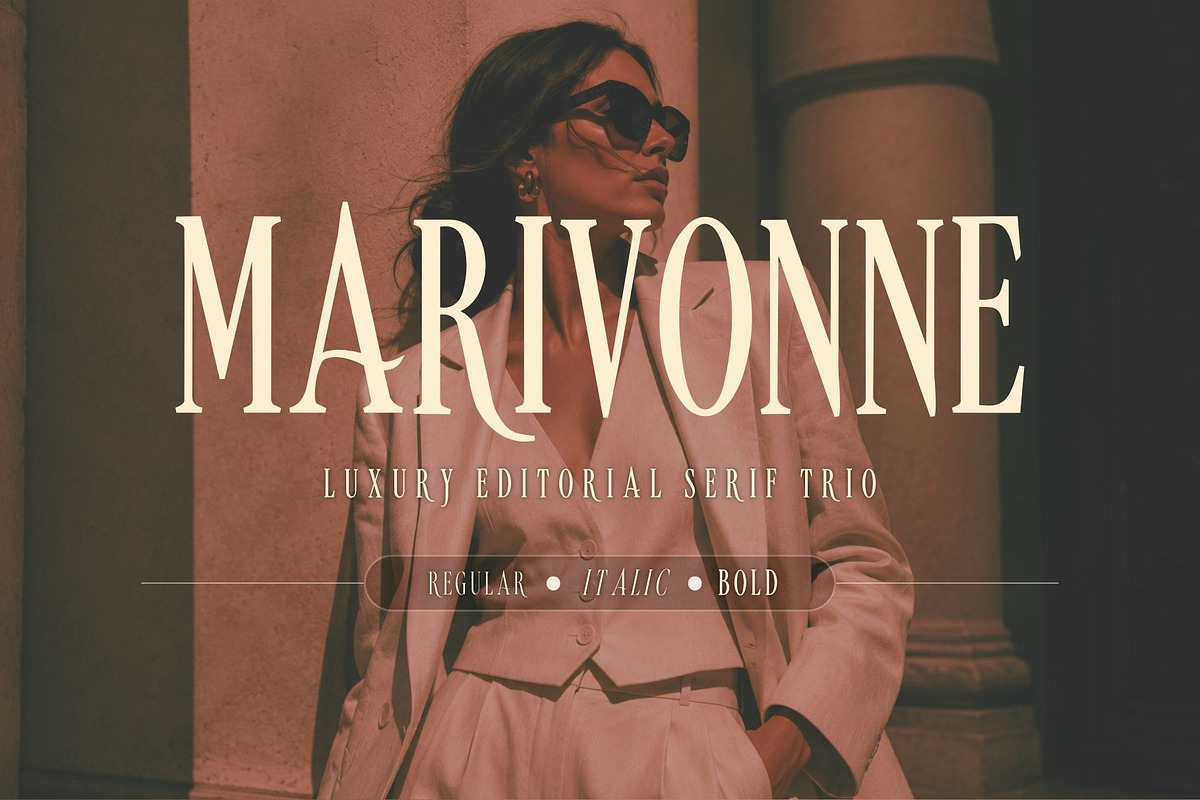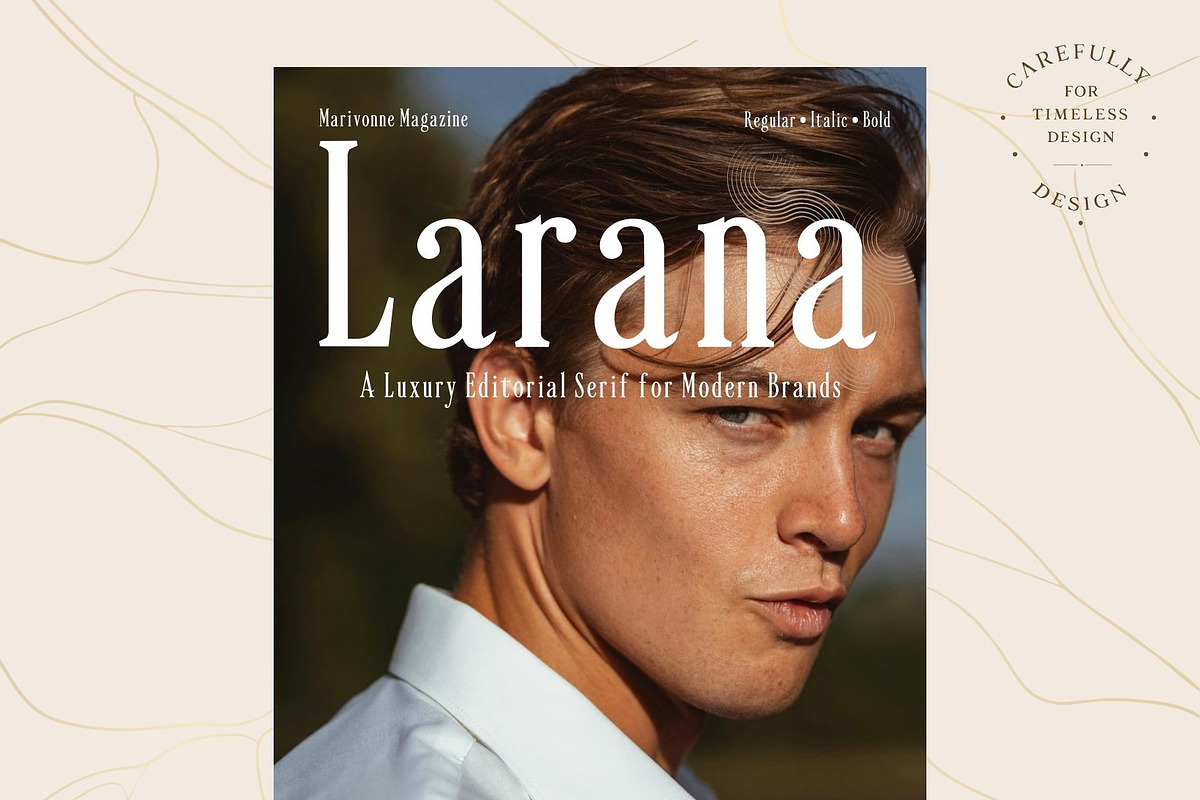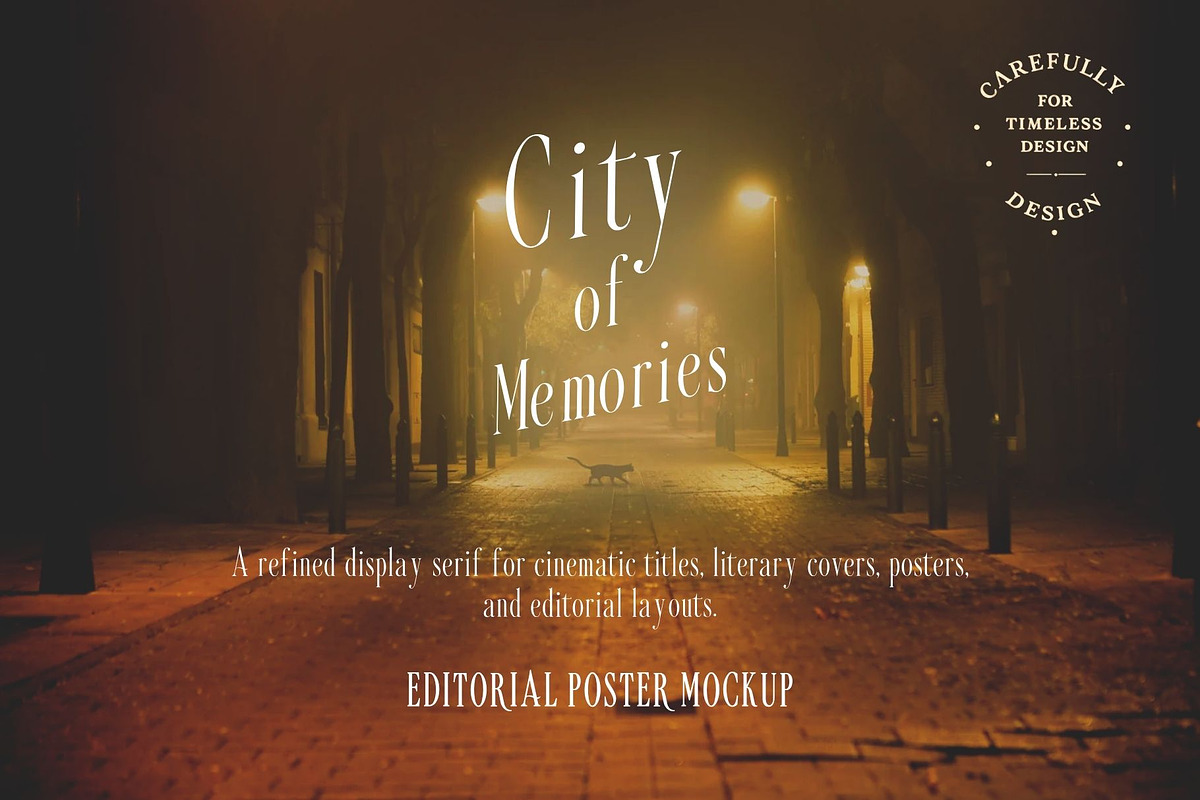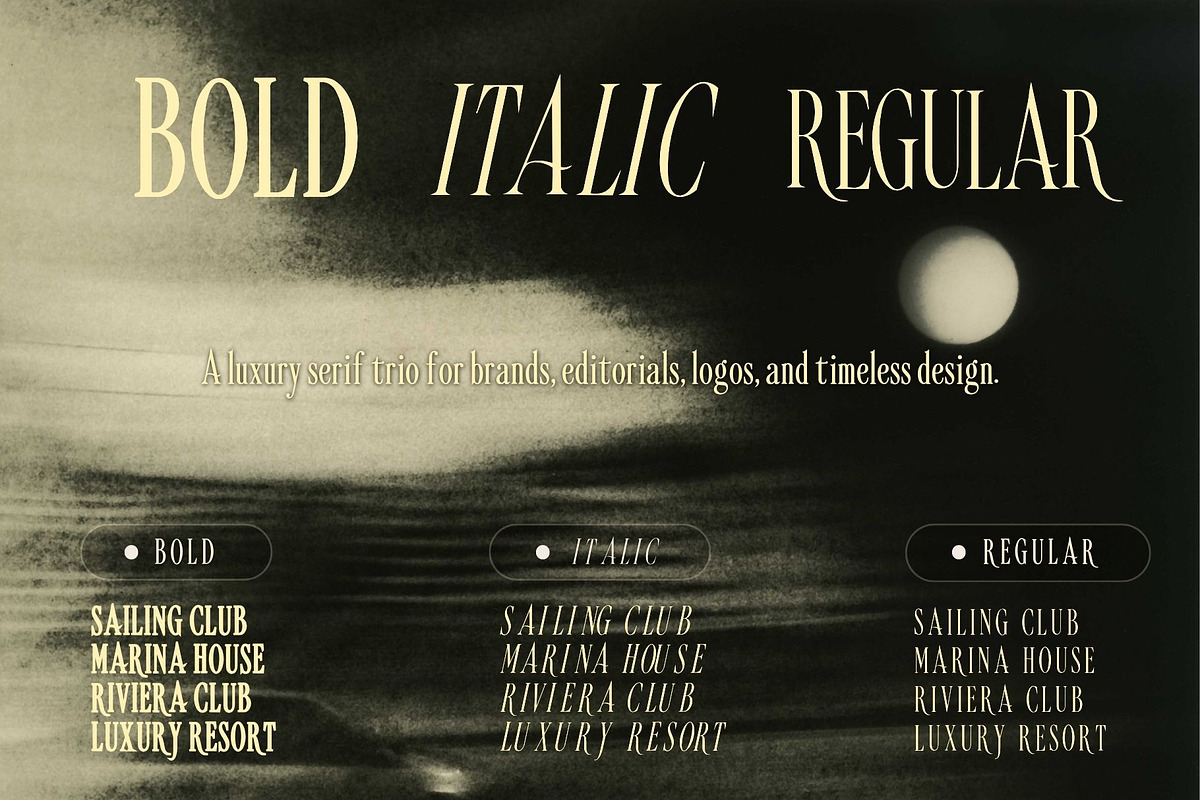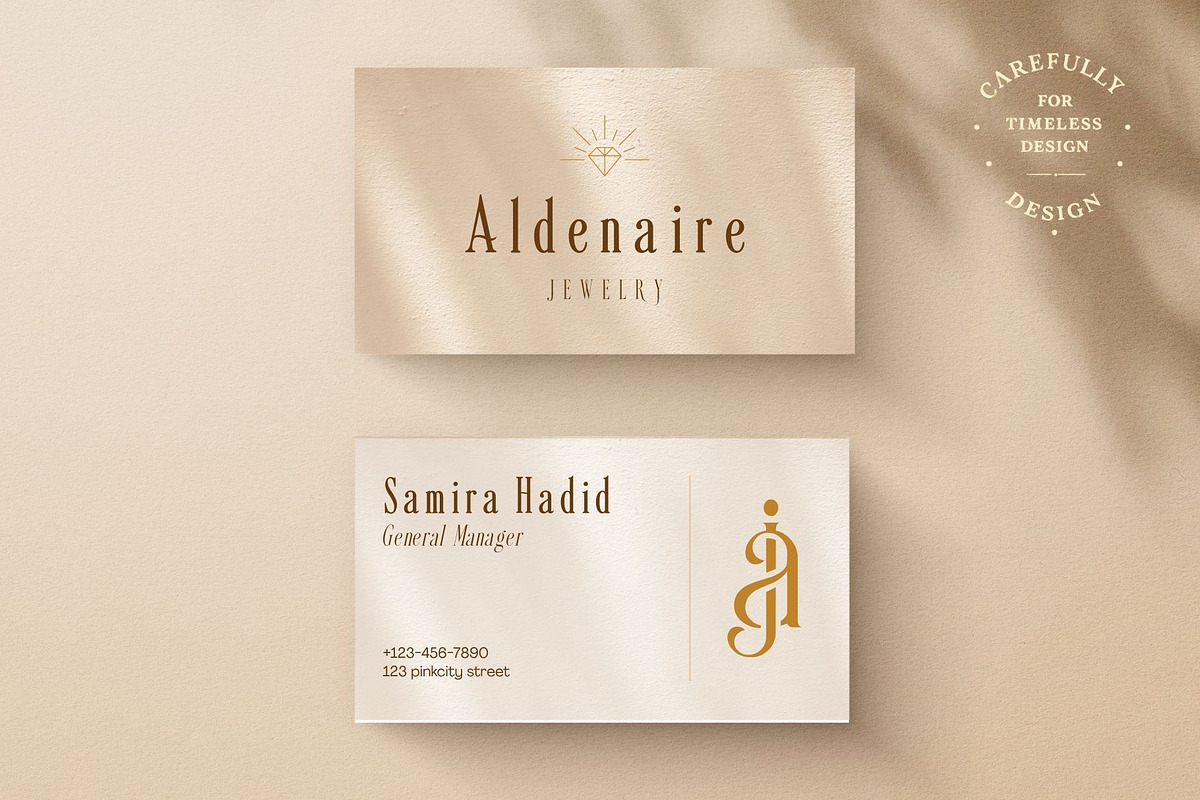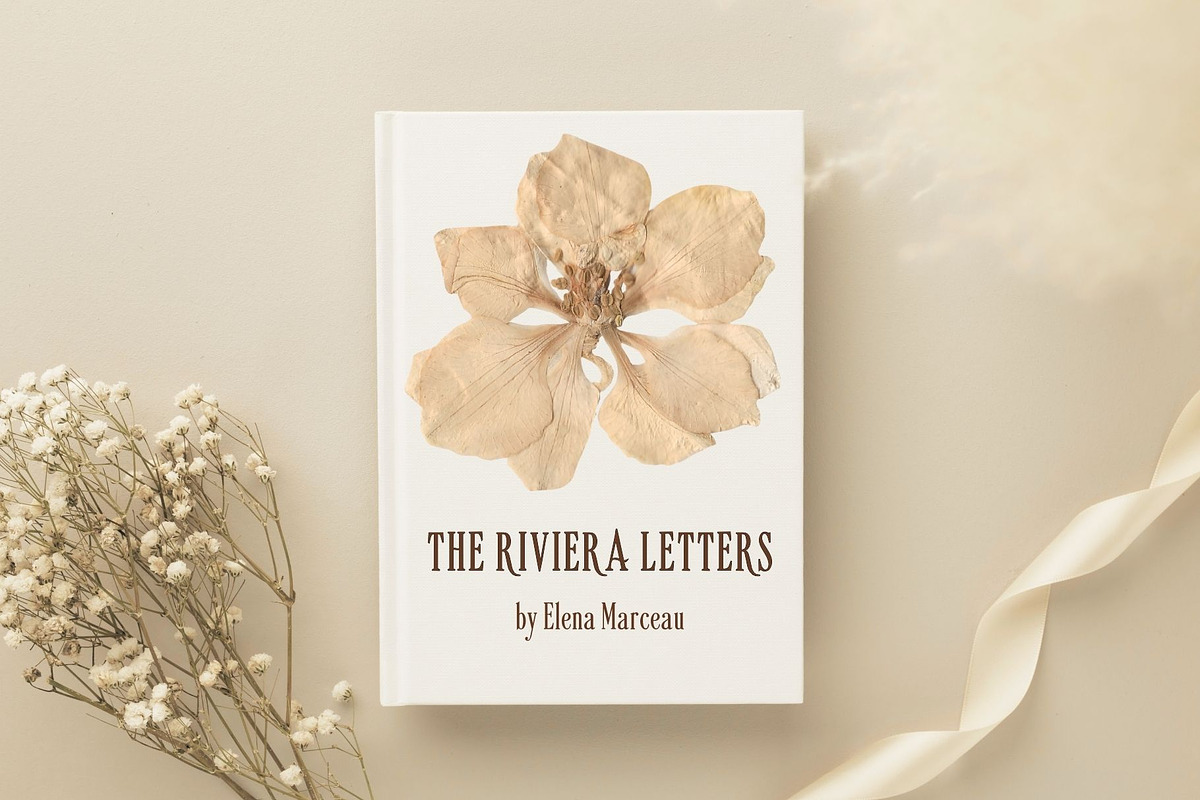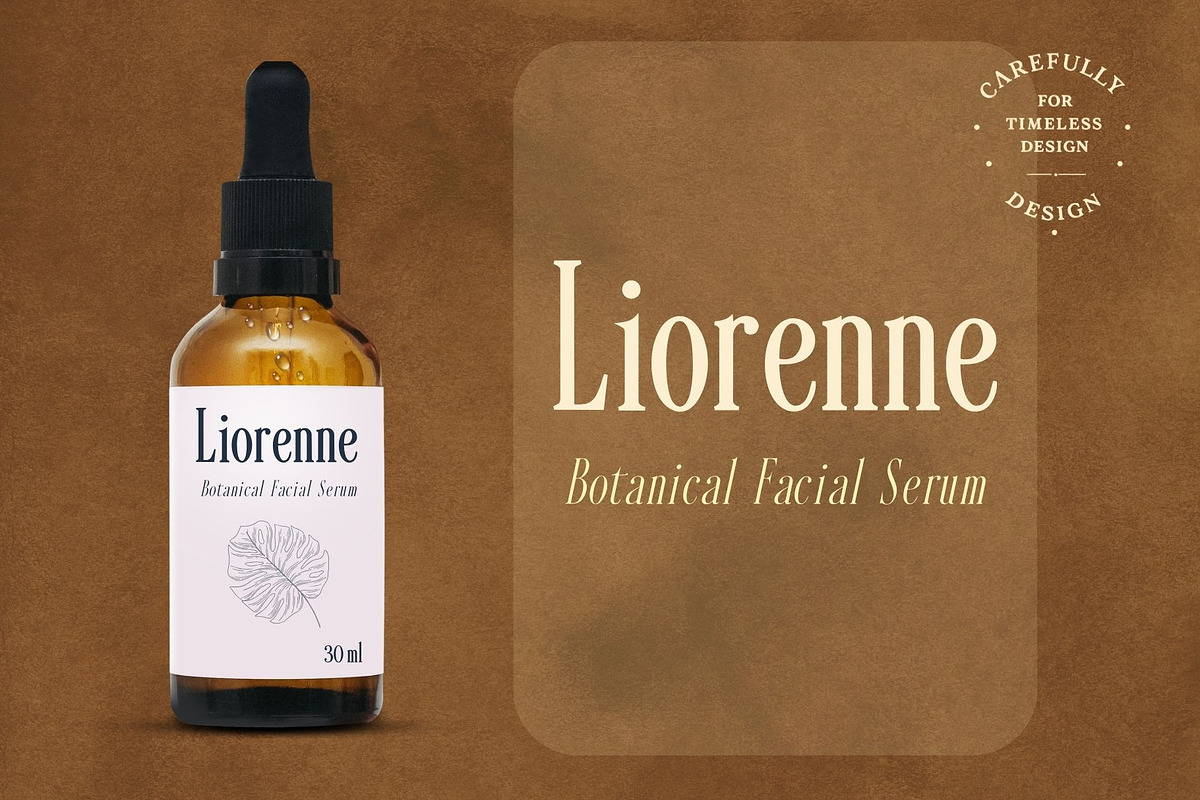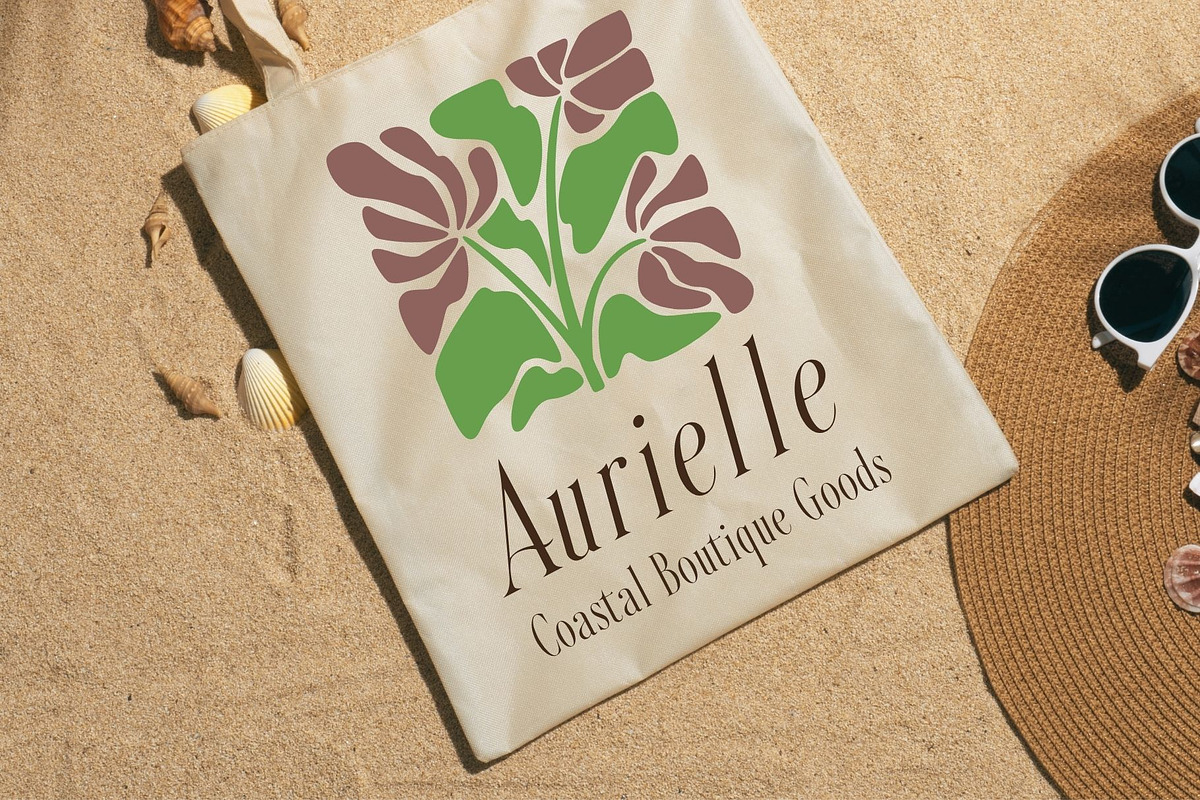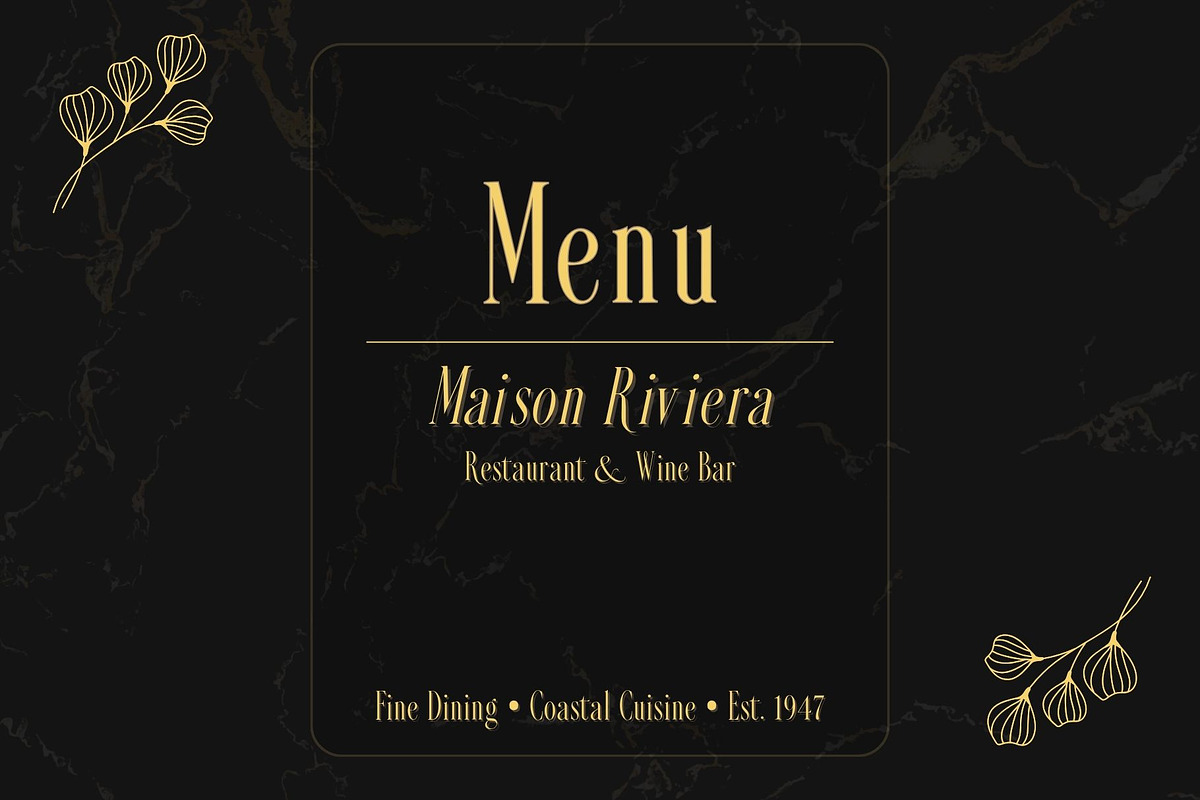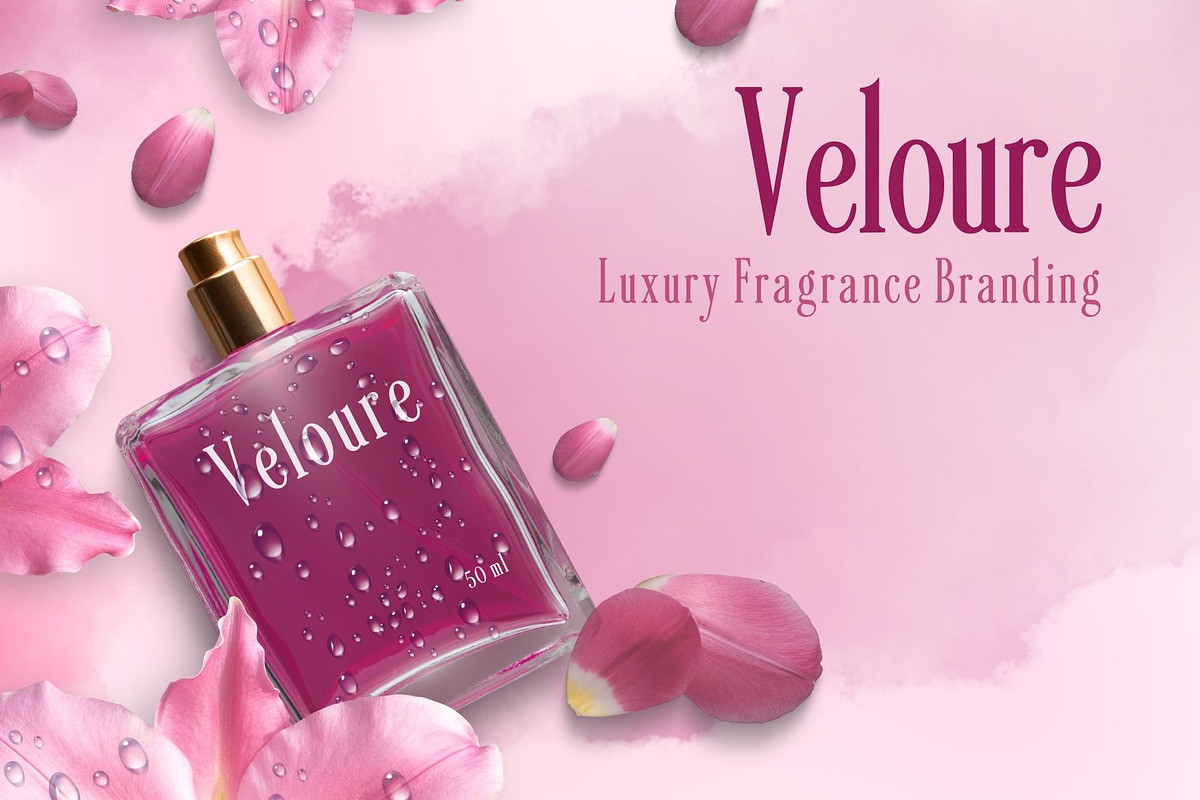
Marivonne Serif Trio
Marivonne Serif Trio is a professional high-contrast display serif font family designed for luxury branding, editorial layouts, fashion logos, beauty packaging, wedding stationery, magazine covers, product labels, and timeless visual identities.
Inspired by elegant magazine typography, coastal resort branding, beauty packaging, and premium lifestyle design, Marivonne brings a polished editorial feel to any project. Its tall letterforms, sharp serif details, graceful curves, and luxury rhythm make it perfect for designers who want a font that feels sophisticated, romantic, and high-end.
Marivonne includes three styles: Regular, Italic, and Bold. Use Regular for elegant branding and clean layouts, Italic for refined accents and romantic details, and Bold for striking headlines, logos, posters, and statement typography.
Great for:
Luxury logos and brand identity
Fashion and beauty branding
Perfume, skincare, wine, and product packaging
Wedding invitations and save-the-date cards
Magazine covers and editorial layouts
Restaurant menus and hotel/resort branding
Book covers, posters, and social media graphics
Boutique, jewelry, and lifestyle brands
Design tip: Use tighter letterspacing for large luxury headlines and slightly looser spacing for smaller text. Pair Marivonne with a clean sans serif for a modern premium look.
Marivonne Serif Trio is made for designers, brand owners, wedding creators, and creative businesses who want elegant typography that instantly feels premium.